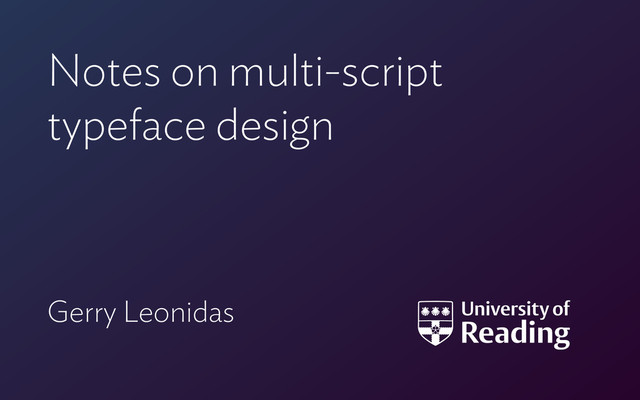
Notes on multi-script typeface design
Notes on multi-script typeface design
Slides from a talk given at Granshan 2014 Design & Identity, in Munich.
Gerry Leonidas
1. Introduction: A comment on the current state of typeface design
for non-Latin scripts, summarising the points made on
“Going Global” [next four slides]
2. Distinguishing between designing typefaces for documents integrating more than one
script, and designing typefaces for scripts that the designer
is unfamiliar with, for overwhelmingly single-script use.
3. In the case of new single-script typefaces, the main challenge
has been the adaptation of script complexity to the limitations of type-making and typesetting systems developed for another context.
4. Commercial pressures (time allocation, budget limits, lack of sufficient clarity
at the project definition) and the variable access to trustworthy information and feedback jeopardise projects.
5. Distinguishing between one column
of a script next to,
or opposite to, one
in another script (e.g. in a translated text) and embedded use (e.g. a word
or a phrase in one script within sentences in another).
6. Features from the original script can be shoehorned onto the
“secondary” script. These may include vertical proportions, stroke dimensions and modulation, terminal formation, handling of punctuation, and so on.
7. Latinisation: the design of a non-Latin script using design patterns
and even specific formal elements from the Latin, usually with a mismatch between the typographic and stylistic connotations of the two scripts (e.g. “modern” ).
8. Typographicisation: the adaptation of
a script that has forms
and behaviour determined by written forms to the constraints of a type-making and typesetting system. This script may
often be used on its own.
9. Limitations examples: character sets, many-to-many substitutions. “Typewriter” fonts: from actual
type- writers, to early digital. Of marginal formal quality, developed under extreme limitations, but still influential.
10. Character sets change over time, across documents, and communities. The
“definitive” versions might not exist. Intensely context-dependent substitutions. Changes to a script across generations.
11. Type family conventions for weight / width / style from
Latin typefaces that do not transfer easily to another script. Communities sharing a complex script, but not a language, an orthography, or international visibility.
12. Stroke modulation and proportions Range of curves and counters Range
of in/out points Number of continuous strokes
13. The variability of radii and counter shapes are most likely
more complex than in the Latin; stroke dimensions tend to respond to these factors. Transferring the logic of the ductus into the typographic forms.
14. The fewer the existing relevant typefaces for a script, the
more pressure for new ones to relate to them. Conventional ways to expand a type family may not apply to a non-Latin script, requiring innovative thinking.
15. Typefaces respond to and reflect the range from language preservation
to mainstream textual communication,
to imported / novel genres that express aspirational classes and generational identification.
16. As a typeface project develops, how do we capture the
design decisions and the knowledge generated? And how is this built upon across projects? Our current workflows aim at final outputs, not capturing and analysing processes.
17. N.b. No part of this discussion
needs to stem
from the
technology of type-making.
18. We lack a clear, shared language
to discuss typeface
design decisions
for shapes and behaviours that is independent of the means of making fonts.